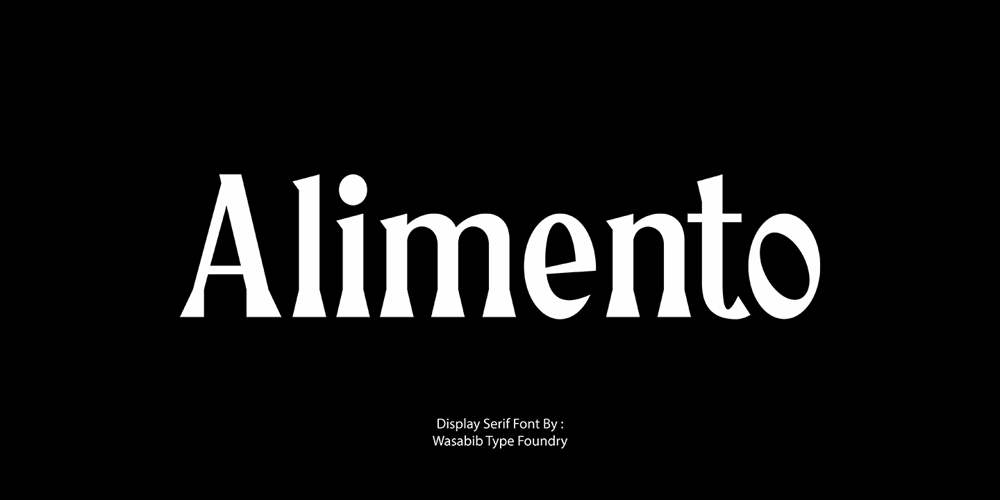
WTF Alimento Font Family was designed by Miftahul Habib and published by Wasabib Type Foundry. WTF Alimento contains 1 styles and family package options. Alimento Font is Mesmerizing Rhythm, harmonious style & Graceful appearance, simplicity and the sophistication magnificent.Alimento is perfect for editorial projects, Logo design, Music Album, Clothing Branding, product packaging, magazine headers, or simply as a stylish text overlay to any background image.What’s you get :- Numeral & Punctuation- LIGATURE- Multilingual Accents